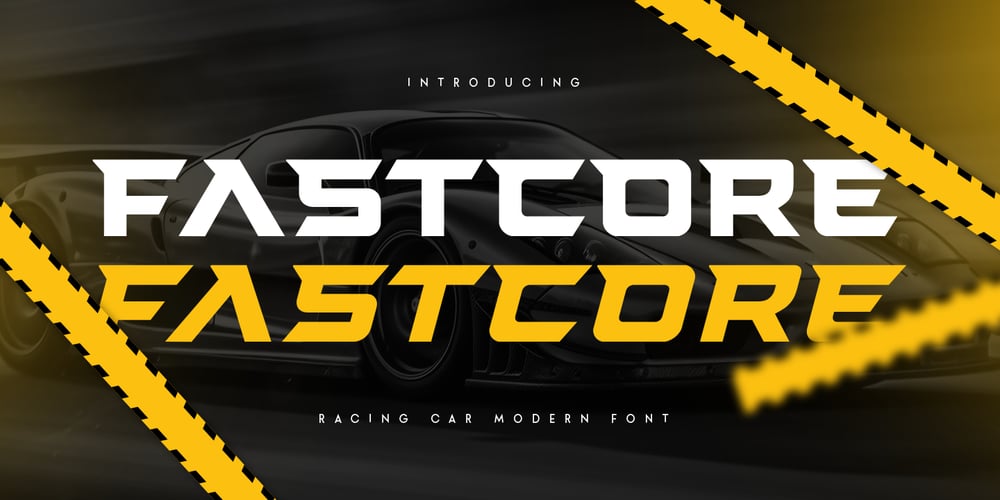
Fastcore Font Family was designed by Zamroni Hamzah and published by Sensatype Studio. Fastcore contains 2 styles and family package options. FASTCORE Racing Car Modern Font is a Modern Logo Racing Font that Modern, Racing and unique characters are ready for Race event, that you can combine to get any variations and unique shapes easily just in seconds with great characters. It is a Sans Serif Bold font with regular and Italic version that perfect for sport branding projects, jersey, logo, wedding designs, social media posts, advertisements, product packaging, product designs, label, watermark, and any projects, it makes with a high level of legibility.What’s Included: FASTCORE font Character set A-Z All Uppercase in Regular & Italic Version Numerals & Punctuation Accented Characters (West Europe) Works on PC & Mac Recommended using Adobe Illustrator or Adobe Photoshop. Wish you enjoy our font. ๐